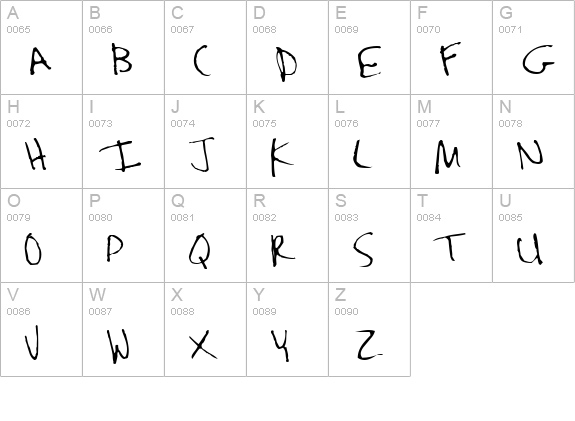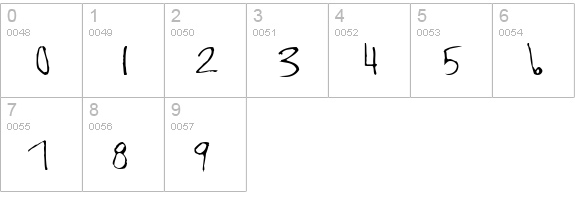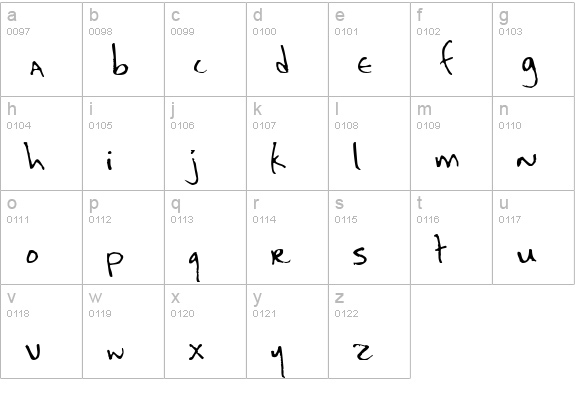
Kaela Font Details
Introducing the mesmerizing Kaela font, a stunning typeface that effortlessly combines elegance with modernity. With its unique and intricate letterforms, Kaela captures attention and adds a touch of sophistication to any design project. Featuring a balanced mix of sharp edges and smooth curves, this font strikes the perfect balance between strength and grace. Each character is meticulously crafted, resulting in a harmonious blend of beauty and legibility. Whether used for branding, headlines, or body text, Kaela will make a lasting impression on your audience. But what makes Kaela even more remarkable is that it is available for free! Yes, you read that right. You can now download this extraordinary font at FontsMarket.com without spending a dime. This means that designers, creatives, and enthusiasts alike have the opportunity to access this exceptional typeface and elevate their work without any financial barriers. So why wait? Unleash your creativity and explore the endless possibilities that Kaela font presents. Download it today from FontsMarket.com and experience the power of combining elegance and modernity in your designs. Don't miss out on this incredible opportunity to enhance your work with a font that is both captivating and freely accessible.